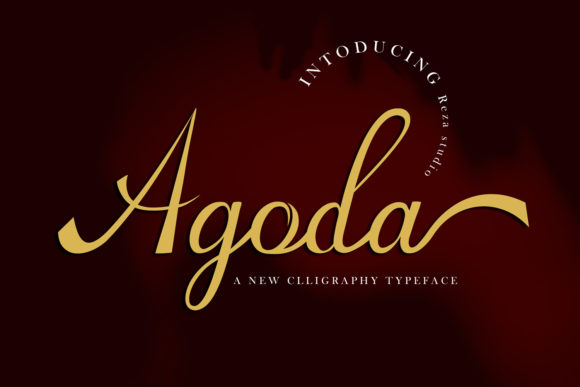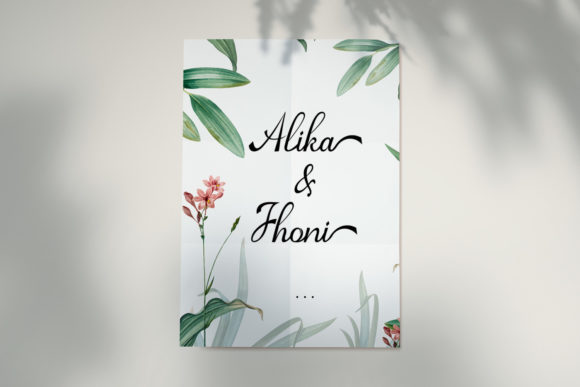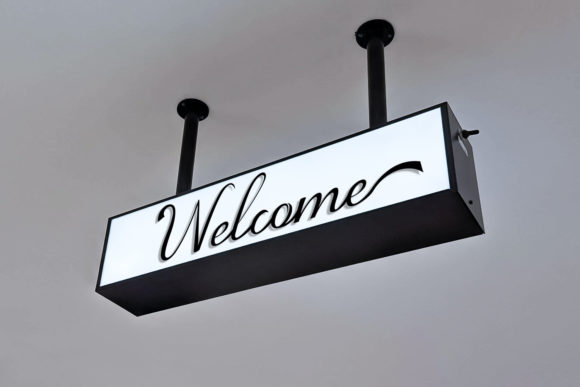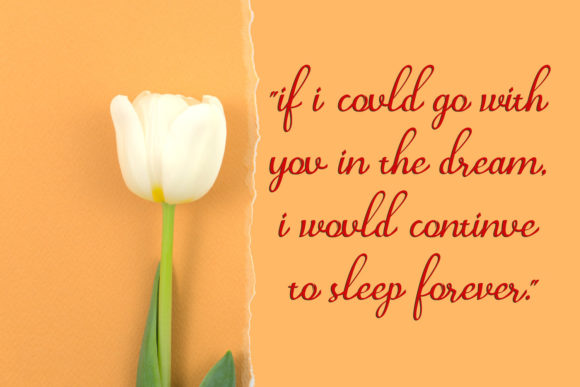
Introducing Agoda Font: Elevate Your Designs with Elegance and Sophistication
Are you on the hunt for a font that exudes style, class, and delicacy? Look no further than Agoda Font, a stunning script font that’s sure to take your designs to the next level. With its clean, thin, and smooth vibe, Agoda is the perfect addition to any project that requires a touch of elegance and sophistication.
What Makes Agoda Font So Special?
Agoda Font is a beautifully crafted script font that’s designed to add a touch of refinement to any design. Its delicate lines and smooth curves create a sense of fluidity and movement, making it perfect for designs that require a sense of dynamism and energy. Whether you’re working on a logo, branding project, or marketing material, Agoda Font is sure to make a lasting impression.
Key Features of Agoda Font
• Clean and Thin Design: Agoda Font features a clean and thin design that’s perfect for creating elegant and sophisticated designs.
• Smooth Vibe: The font’s smooth curves and lines create a sense of fluidity and movement, making it perfect for designs that require a sense of dynamism and energy.
• PUA Encoded: Agoda Font is PUA encoded, which means you can access all of the glyphs and swashes with ease. This makes it easy to customize your designs and add your own personal touch.
• Stylish and Classy: Agoda Font is a stylish and classy script font that’s perfect for designs that require a touch of elegance and sophistication.
Why Designers and Crafters Love Agoda Font
Agoda Font has quickly become a favorite among designers and crafters, and for good reason. Its unique combination of style, elegance, and versatility makes it the perfect addition to any design project. Here are just a few reasons why designers and crafters love Agoda Font:
• Versatility: Agoda Font can be used for a wide range of design projects, from logos and branding materials to marketing materials and more.
• Unique Style: Agoda Font’s unique style and design make it stand out from other fonts, ensuring that your designs will be noticed and remembered.
How to Use Agoda Font in Your Designs
• Experiment with Different Sizes and Styles: Agoda Font looks great in a variety of sizes and styles, so don’t be afraid to experiment and find the look that works best for your design.
• Pair it with Other Fonts: Agoda Font pairs well with a variety of other fonts, so try pairing it with some of your favorite fonts to create a unique and interesting design.
• Use it for Headings and Titles: Agoda Font is perfect for headings and titles, where its elegant and sophisticated design can really shine.